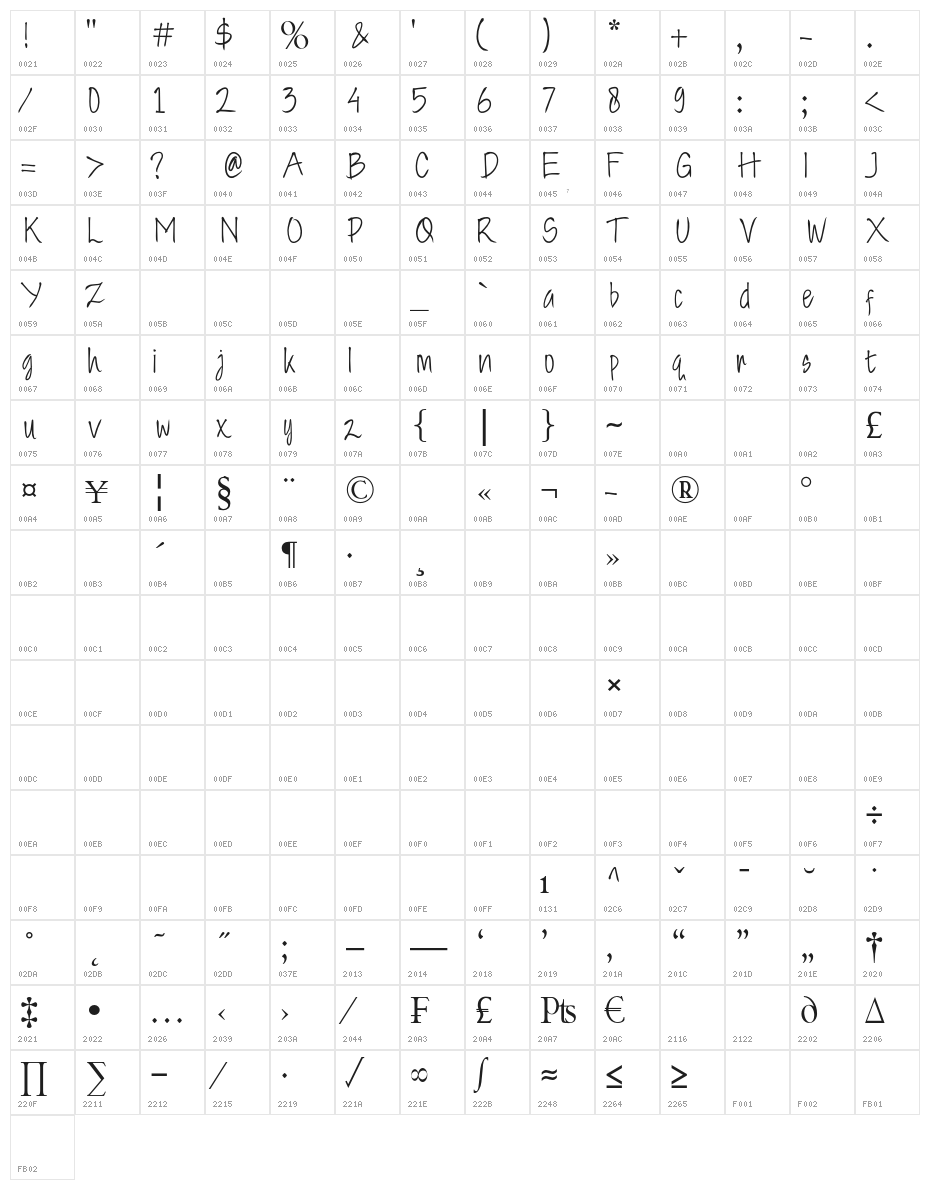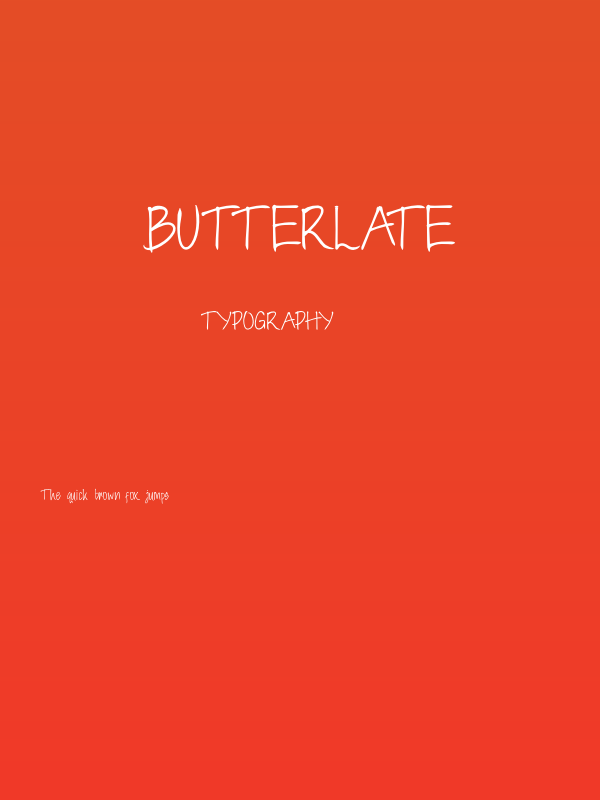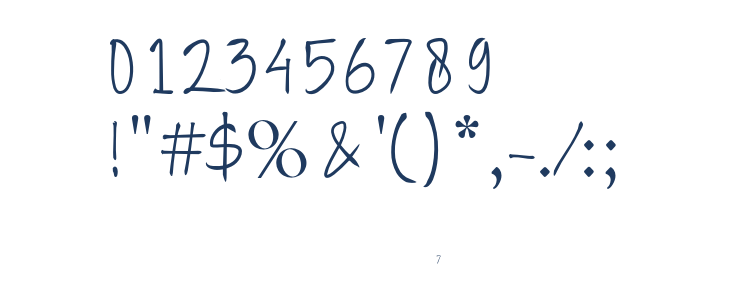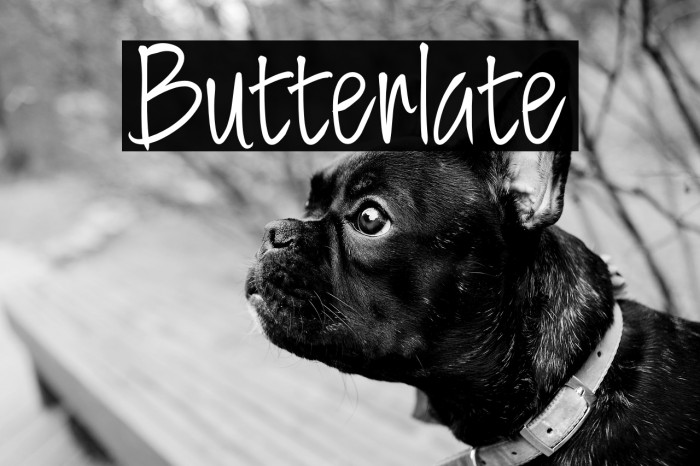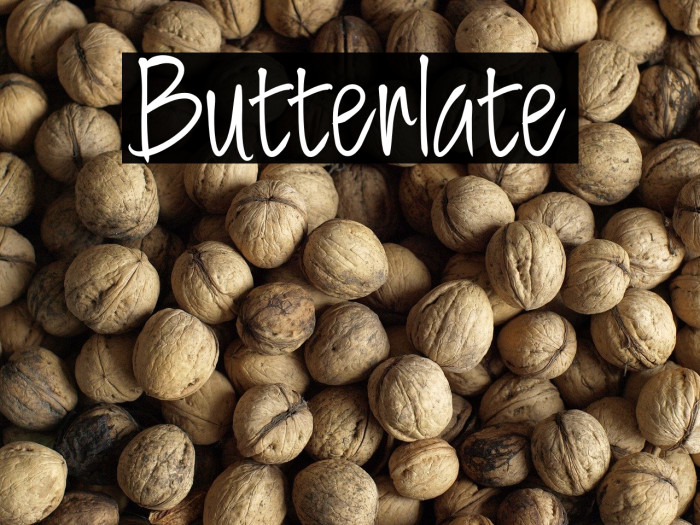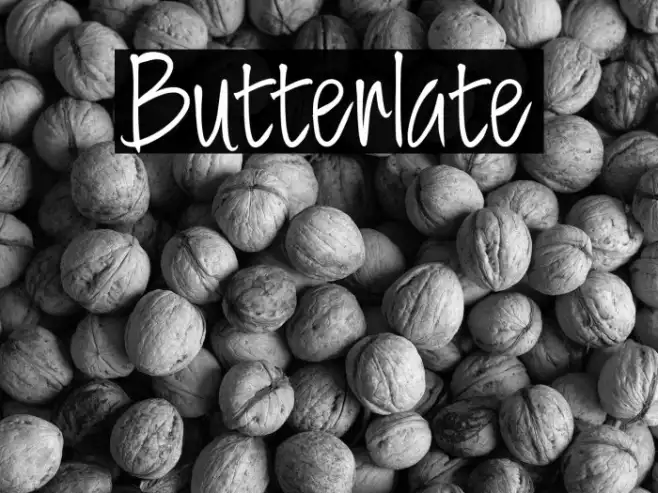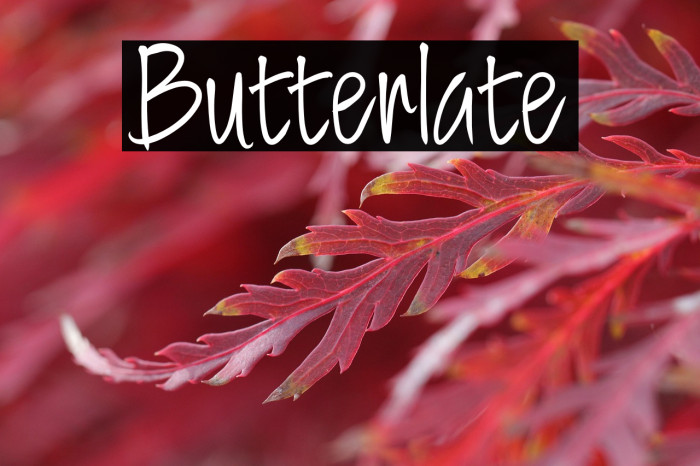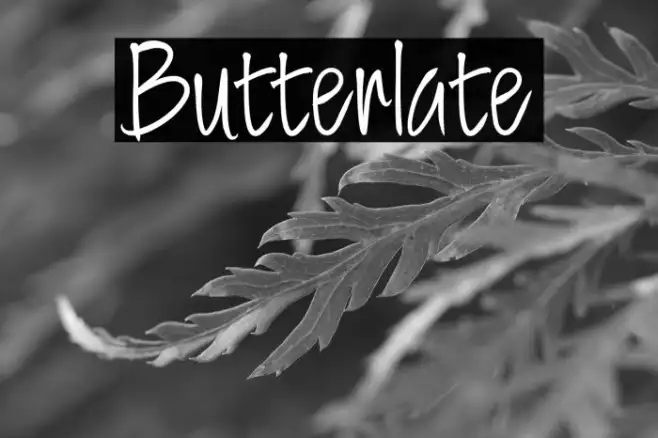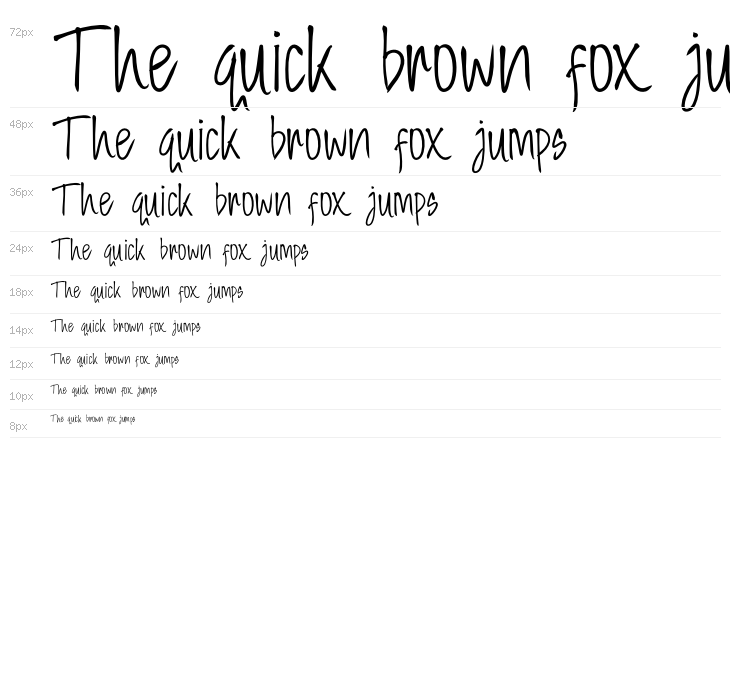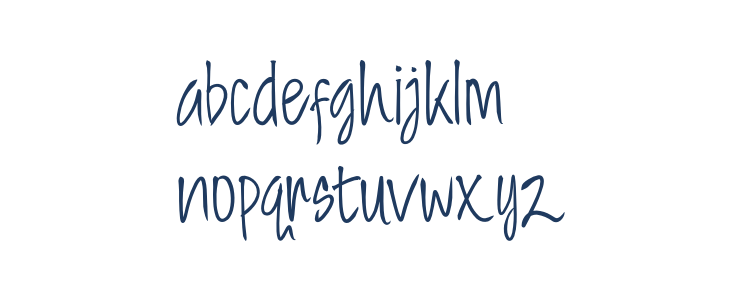
Butterlate Font
Butterlate Description
This font features a playful and casual handwritten style, characterized by its irregular strokes and organic flow. The uppercase letters are tall and slightly narrow, while the lowercase letters maintain a consistent height, giving the font a cohesive look. The numbers and special characters follow the same playful aesthetic, making them blend seamlessly with the letters. The overall appearance is informal and friendly, suitable for projects that require a personal touch. The strokes vary in thickness, adding a dynamic feel to the text.
BUTTERLATE UPPERCASE
BUTTERLATE LOWERCASE
BUTTERLATE OTHER CHARS
| Use Case | Headlines, Logos, Informal text |
| Proposed Projects | Ideal for greeting cards, invitations, personal branding, and social media graphics. |